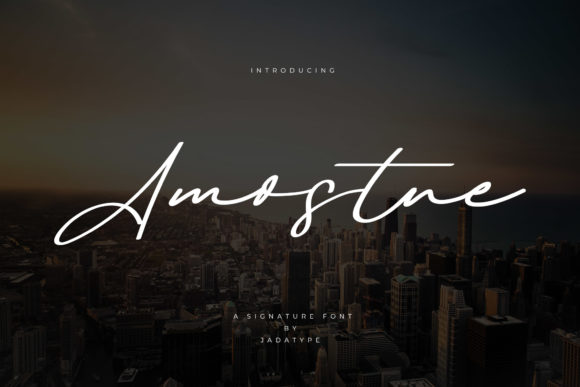
Introducing Amostne Font: Elevate Your Brand with Elegance
Are you searching for a font that exudes sophistication and style? Look no further than Amostne, a signature font designed to elevate your brand, business cards, and marketing materials. With its elegant lines and multilingual support, Amostne is the perfect choice for designers and crafters seeking to make a lasting impression.
What is Amostne Font?
Amostne is a carefully crafted font that boasts elegant lines, making it ideal for use as a logotype, on business cards, or in any application where a touch of sophistication is desired. This font is not just a simple typeface; it’s a statement piece that can help define your brand’s identity.
Key Features of Amostne Font
- Elegant Lines: Amostne’s design is characterized by its smooth, flowing lines that convey a sense of luxury and refinement.
- Multilingual Support: The font includes several letters that support multilingualism, making it versatile for use in a global context.
- Standard English Letters: Amostne contains all the standard English letters, ensuring that you can use it for a wide range of applications.
- PUA Encoded: Being PUA (Private Use Area) encoded, Amostne allows you to access all glyphs and swashes easily, giving you greater creative control.
Why Choose Amostne Font?
Choosing Amostne for your design projects comes with numerous benefits. Its unique and elegant style sets it apart from more common fonts, ensuring that your work stands out. The font’s versatility, thanks to its multilingual support and PUA encoding, means you can use it across a variety of projects and applications. Additionally, the ease of use provided by its compatibility with major design software makes Amostne a practical choice for professionals and hobbyists alike.
Applications of Amostne Font
The applications for Amostne are vast and varied. Here are a few ideas to get you started:
- Branding: Use Amostne as your logotype to give your brand a sophisticated and memorable identity.
- Business Cards: Elevate your business cards with a font that exudes professionalism and style.
- Marketing Materials: From brochures to flyers, Amostne can add a touch of elegance to any marketing material.
- Web Design: Incorporate Amostne into your web design projects to create visually appealing and distinctive websites.
Tips for Using Amostne Font
To get the most out of Amostne, consider the following tips:
- Pair it Wisely: Combine Amostne with complementary fonts to create visual interest and hierarchy in your designs.
- Experiment with Swashes: Take advantage of the PUA encoding to explore different swashes and glyphs, adding a personal touch to your work.
- Consider Your Audience: Given its elegant nature, Amostne is particularly suited for luxury brands, high-end products, and services.
Amostne Font is a powerful tool for designers and crafters looking to infuse their projects with elegance and sophistication. Its elegant lines, multilingual support, and ease of use make it an excellent choice for a wide range of applications. Whether you’re working on a branding project, designing business cards, or creating marketing materials, Amostne can help you achieve your design goals with style.